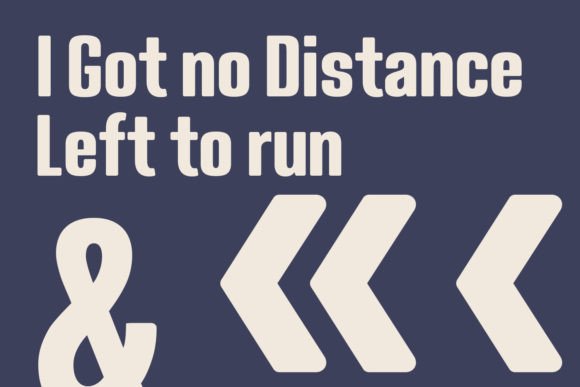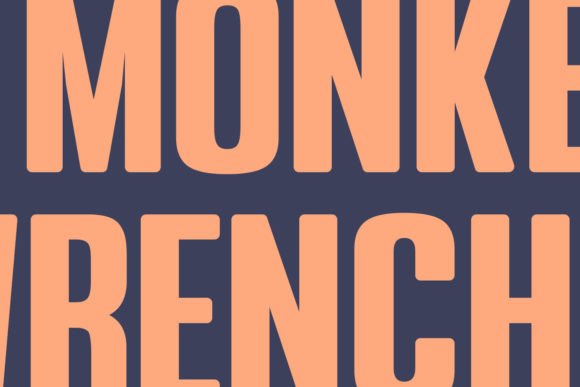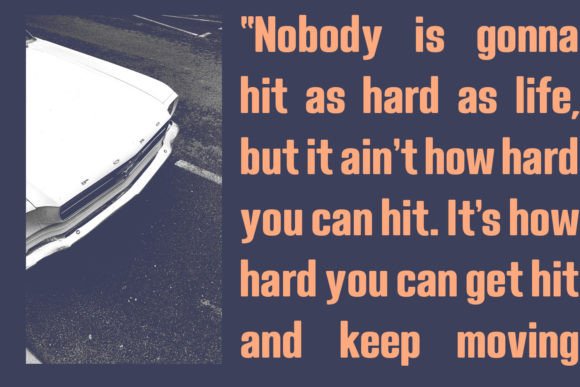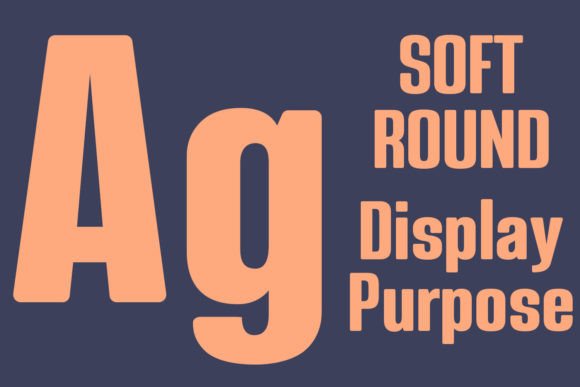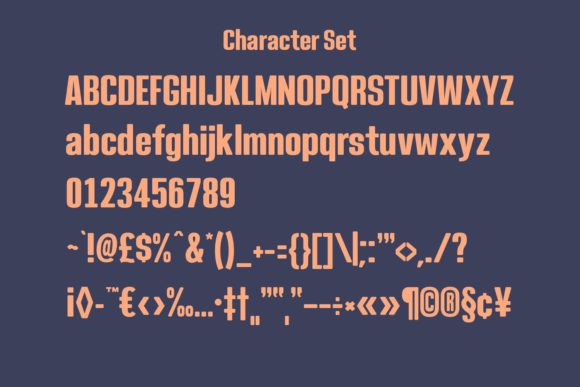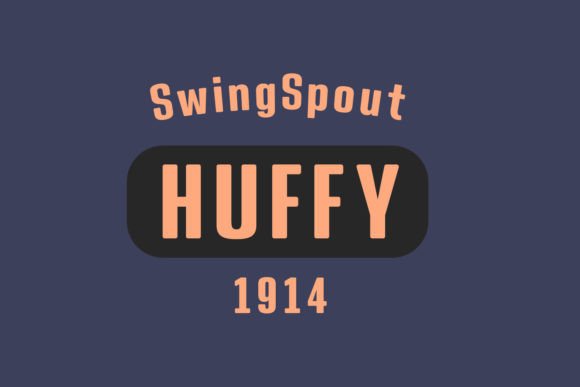
Discover the Timeless Elegance of Defoils Font: Elevate Your Designs with a Classic Sans Serif
In the world of typography, fonts play a crucial role in conveying messages, evoking emotions, and setting the tone for a brand or design. Among the numerous fonts available, Defoils stands out as a classic and neat sans serif font that can elevate any creation. Whether you’re a designer, crafter, or simply a font enthusiast, Defoils is an incredible asset to your font library, offering versatility and timeless elegance.
The Characteristics of Defoils Font
Defoils is a sans serif font, characterized by its clean lines, simple shapes, and lack of decorative flourishes. This font’s minimalist approach makes it highly legible, ensuring that your text is easily readable across various mediums, from digital screens to print materials. Its classic nature allows it to blend seamlessly with a wide range of design styles, from modern and sleek to traditional and elegant.
Why Choose Defoils Font?
So, what makes Defoils an excellent choice for designers and crafters? Here are a few compelling reasons:
- Versatility: Defoils is a highly versatile font that can be used for a wide range of projects, including branding, advertising, packaging, and more. Its neutral tone makes it an excellent choice for designs that require a professional and sophisticated look.
- Legibility: The font’s clean lines and simple shapes ensure that your text is easily readable, even at small sizes. This makes it perfect for body text, captions, and other applications where legibility is crucial.
- Elegance: Defoils exudes a sense of timeless elegance, making it an excellent choice for designs that require a touch of sophistication. Its classic nature ensures that your designs will remain stylish and relevant for years to come.
How to Use Defoils Font in Your Designs
Defoils can be used in a variety of design applications, from digital projects to print materials. Here are a few ideas to get you started:
- Branding and Logo Design: Use Defoils as a primary font for your brand’s logo, or as a secondary font to add a touch of elegance to your design.
- Advertising and Marketing: Defoils is an excellent choice for advertising and marketing materials, such as brochures, flyers, and social media graphics.
- Packaging Design: Add a touch of sophistication to your packaging designs with Defoils, perfect for luxury brands, food packaging, and more.
Tips for Pairing Defoils with Other Fonts
While Defoils is a stunning font on its own, it can also be paired with other fonts to create a unique and visually appealing design. Here are a few tips for pairing Defoils with other fonts:
- Contrast with Script Fonts: Pair Defoils with a script font to create a beautiful contrast between the clean lines of Defoils and the flowing curves of the script font.
- Combine with Serif Fonts: Defoils can also be paired with serif fonts to create a interesting contrast between the modern, clean lines of Defoils and the traditional, classic look of the serif font.
In conclusion, Defoils is a classic and neat sans serif font that can elevate any design. Its versatility, legibility, and elegance make it an excellent choice for designers and crafters looking to add a touch of sophistication to their creations. Whether you’re working on a branding project, advertising campaign, or packaging design, Defoils is an incredible asset to your font library.
So why not give Defoils a try? With its timeless elegance and versatility, it’s sure to become a staple in your font collection.